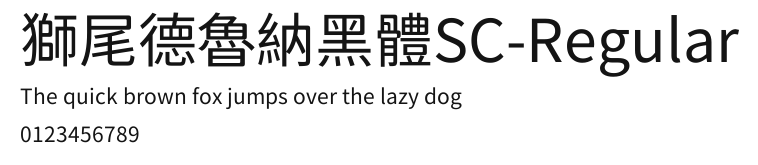
獅尾德魯納黑體SC-Regular Preview
• Font Name: 獅尾德魯納黑體SC-Regular
• Font ID: FontForge 2.0 : Swei Del Luna Sans CJK SC Regular : 20-4-2020
• Full Font Name: 獅尾德魯納黑體SC-Regular
• Version: Version 2.133
• PostScript Name: SweiDelLunaSansCJKsc-Regular
• Character Count: 44898
About 獅尾德魯納黑體SC-Regular.ttf
獅尾德魯納黑體SC-Regular.ttf is a modern, elegant sans-serif font designed for ultimate readability and visual harmony. Perfect for branding, headlines, web design, and print materials.